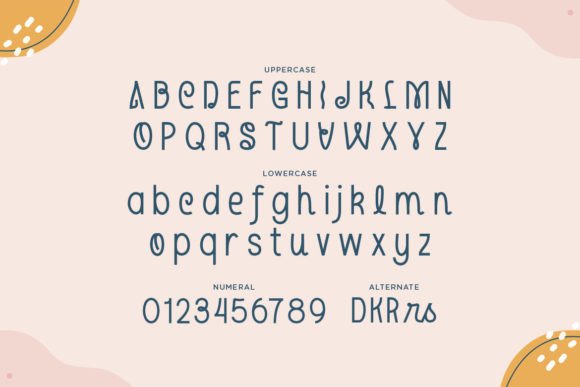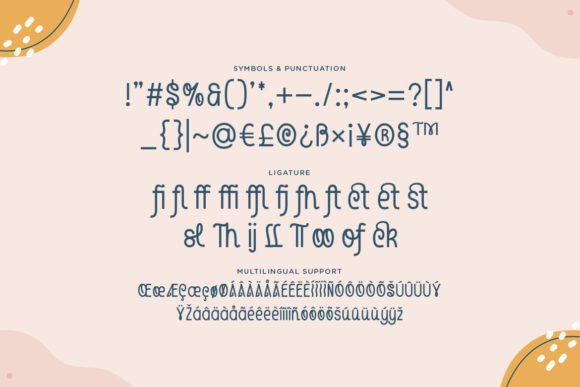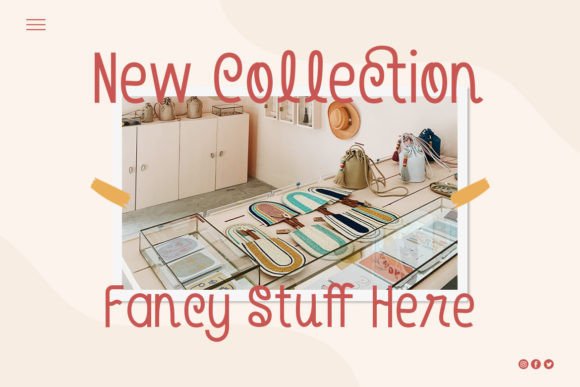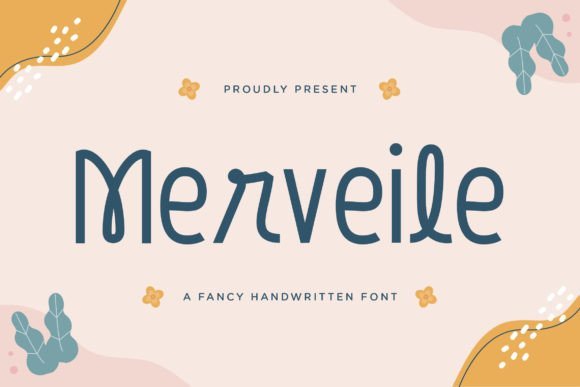
Introduction to Merveile Font
Merveile is a fancy handwritten font, carefully handcrafted to become a true favorite.
This font will look outstanding in any context, whether it’s being used on busy backgrounds or as a standalone headline .